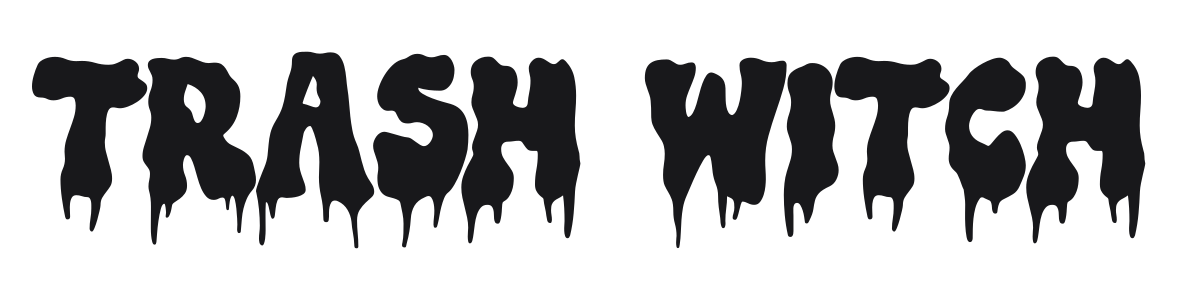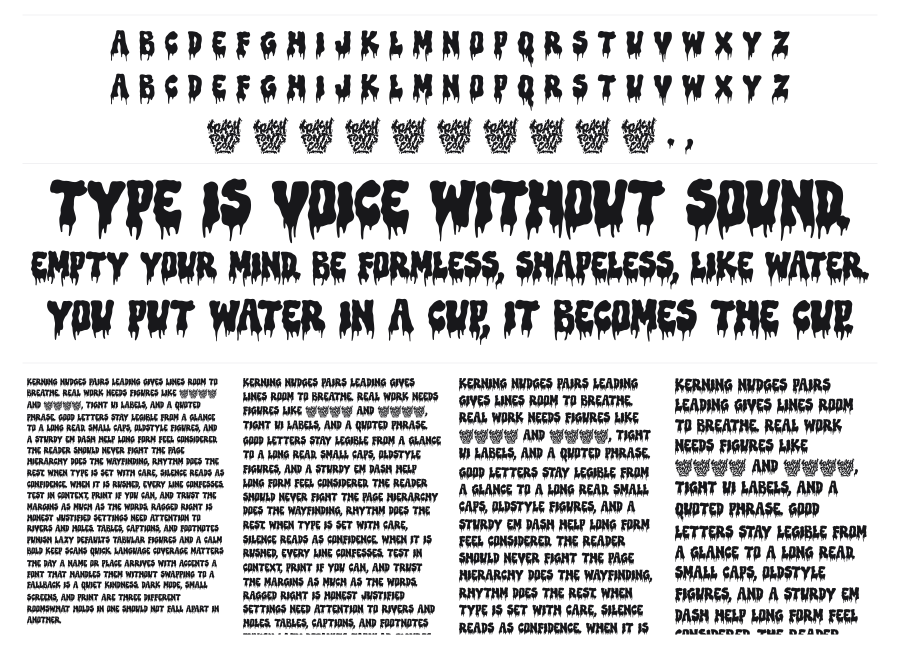
Trash Witch
Trash Witch is a heavy horror display font built around thick, bold characters with organic dripping details hanging from every stroke. The irregular, blob-like edges and melting forms give it an immediate association with witchcraft, B-movie horror, and Halloween aesthetics. It carries genuine visual weight and personality at large sizes.